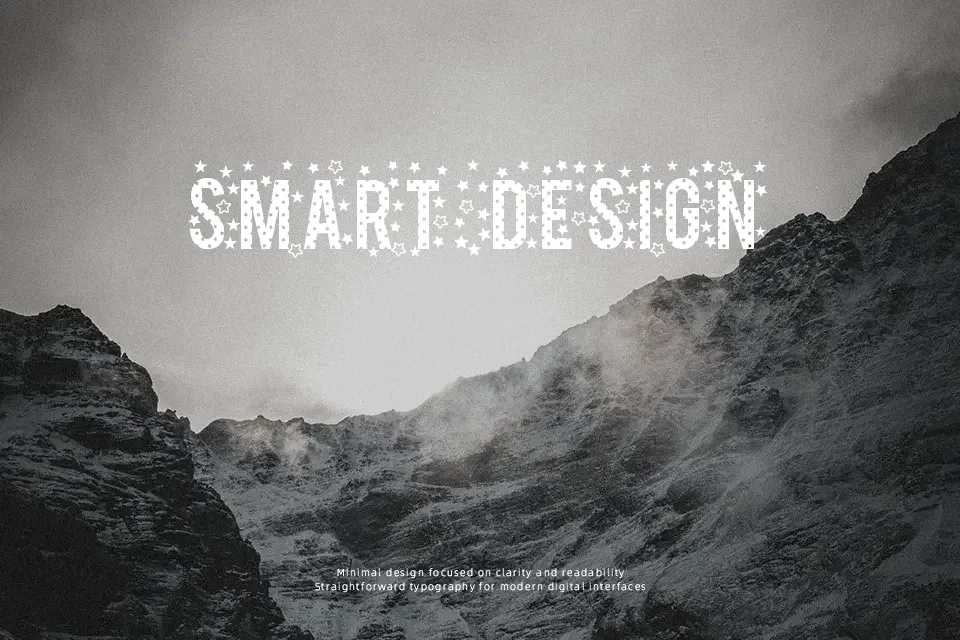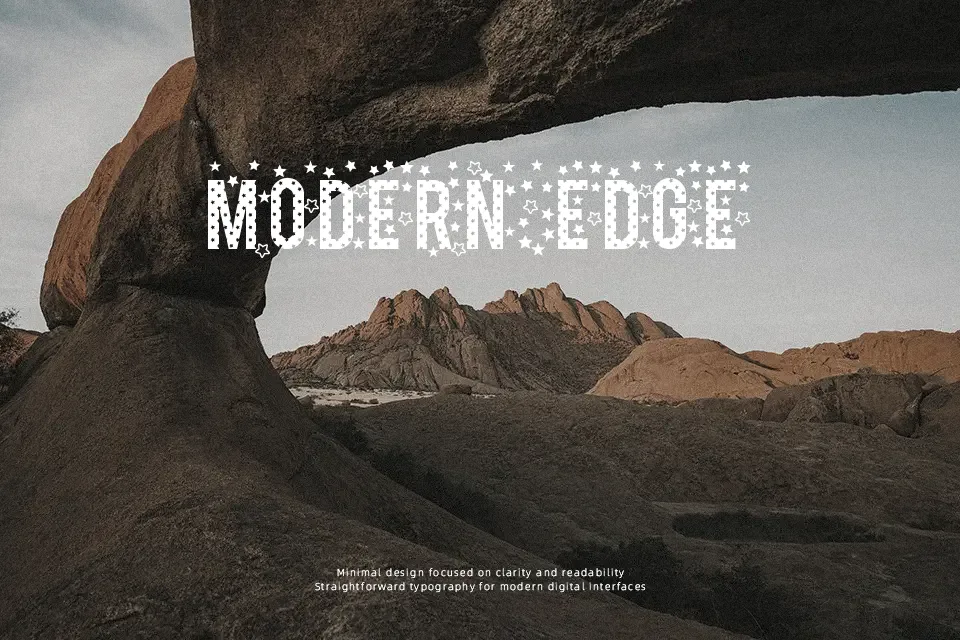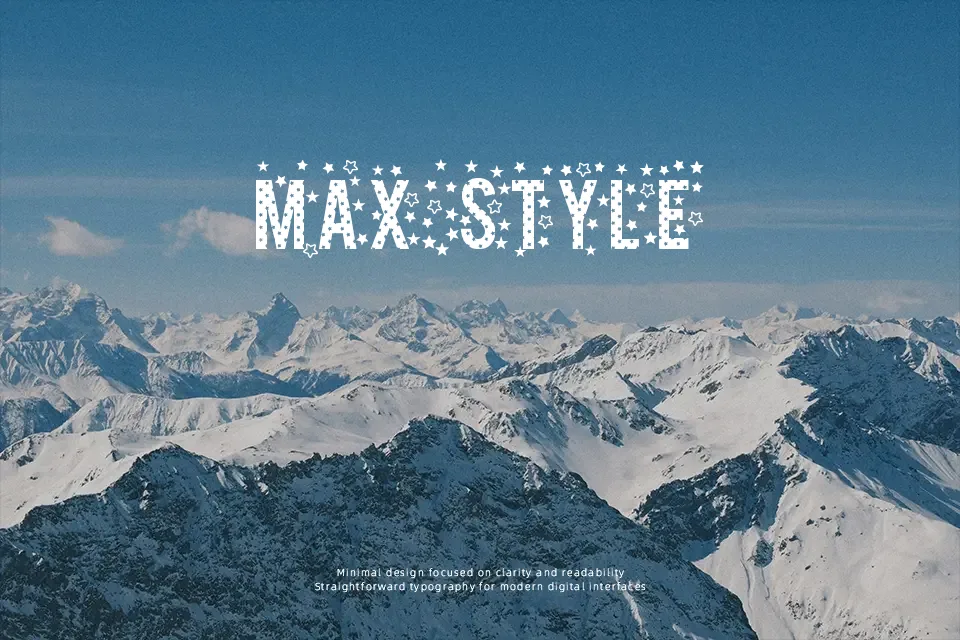
Stars TFB Font
Stars TFB Font presents an eye-catching decorative aesthetic defined by heavy, solid letterforms integrated with celestial cutout shapes. Each glyph features consistent blocky proportions with low stroke contrast, creating a dense typographic rhythm across uppercase and lowercase sets. Wide letter tracking prevents the internal star ornaments from overcrowding adjacent characters during display application. The letterforms remain easy to distinguish when scaled for party invitations, festival signage, and bold packaging titles. However, the intricate internal cutouts degrade rapidly at small point sizes, making the typeface unsuitable for continuous body text or dense editorial paragraphs. This typeface performs best when displayed at larger sizes where graphic cutouts stay sharp.
Best For: festival posters,party invitations,toy packaging,event banners
Not Ideal For: body text paragraphs,mobile interface copy,legal disclaimers,editorial book layouts
Perfect for headline, holiday, and kids, with a bold and decorative style.